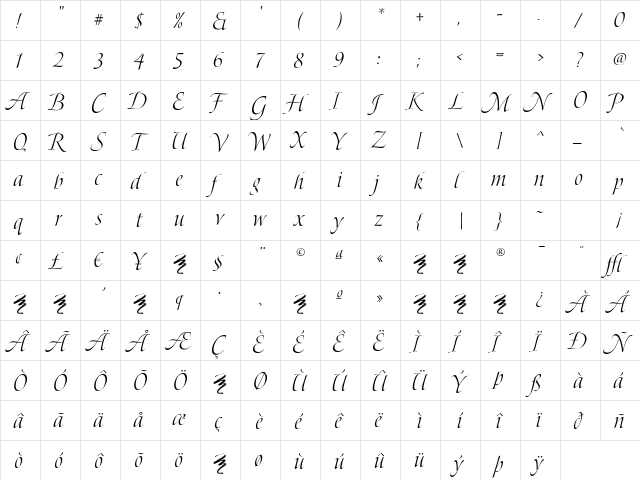
Bolero script Regular
| Foundry | Alexandra Gophmann |
| Designer | Alexandra Gophmann |
Design Context for Bolero script Typeface
Bolero script brings a calligraphic fluidity to the page — its connecting strokes and expressive curves give it an unmistakably human quality.
Font Pairing: Combine Bolero script with a simple geometric sans for maximum contrast — the tension between flowing curves and clean structure is a classic typographic pairing.
Pro Tip: Pair Bolero script with a clean sans-serif for supporting text. The contrast between fluid script and geometric structure creates an elegant typographic hierarchy.